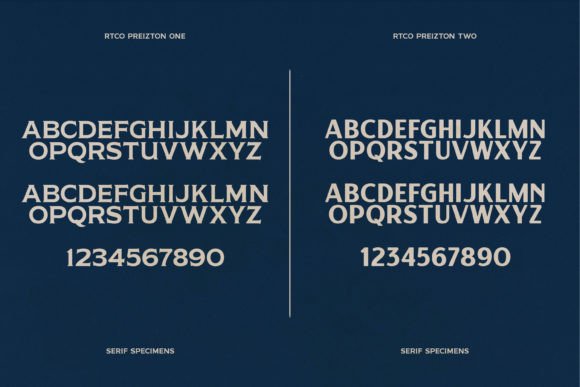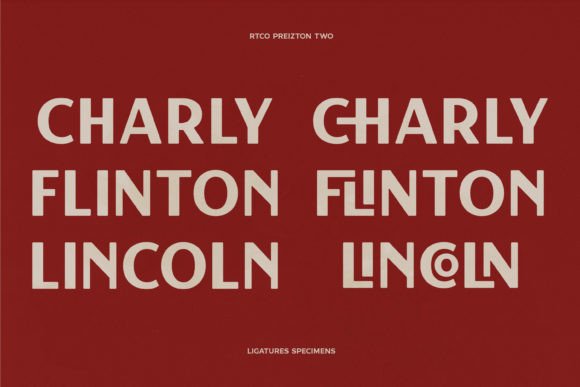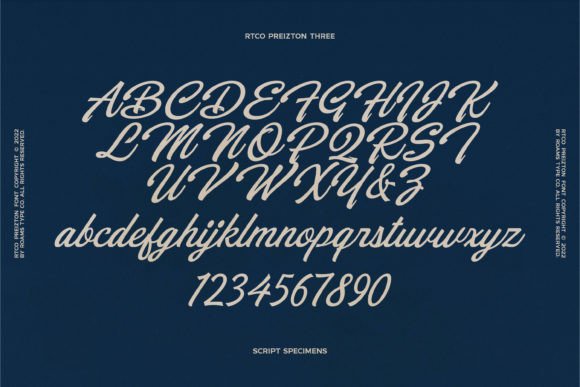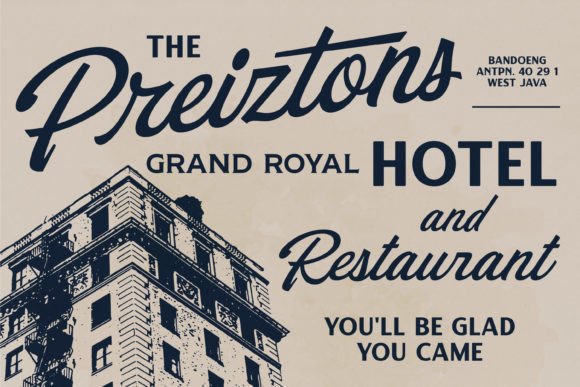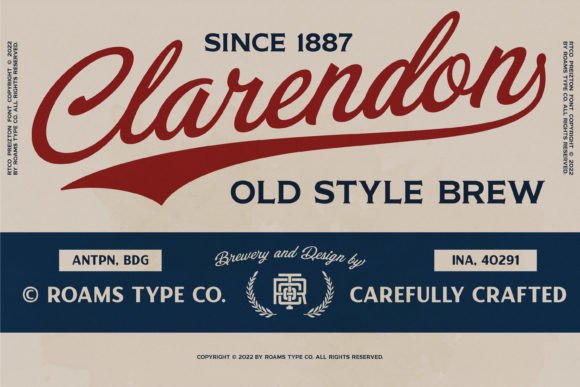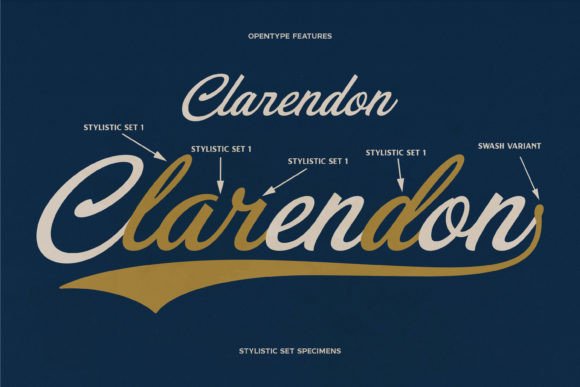
Introduction to Preizton Font Font
Fonts play a crucial role in design, and the Preizton Font font is a typeface that brings both character and versatility to any project. Whether you’re working on a branding project, a website, or a print design, the Preizton Font font offers a unique style that can elevate your work.
| 👤 Author | Roams Type Co. |
Preizton is a vintage and stylish sans-serif font, designed to bring a touch of nostalgia and class to any project.
Its timeless design and refined character set to make it perfect for logos, headlines, and editorial design This font blends the best of vintage and modern aesthetics to create a unique and unforgettable look.
Key Features of Preizton Font Font
Why Choose Preizton Font Font?
The Preizton Font font is more than just a typeface – it’s a design tool that helps you communicate your message with style and clarity. Its unique character set and versatile design make it suitable for a wide range of applications, from elegant invitations to bold headlines.
With its carefully crafted letterforms and balanced proportions, the Preizton Font font ensures readability and visual appeal across all mediums.
What makes Preizton Font font special?
The Preizton Font font stands out with its unique design, exceptional readability, and versatility across various design applications.